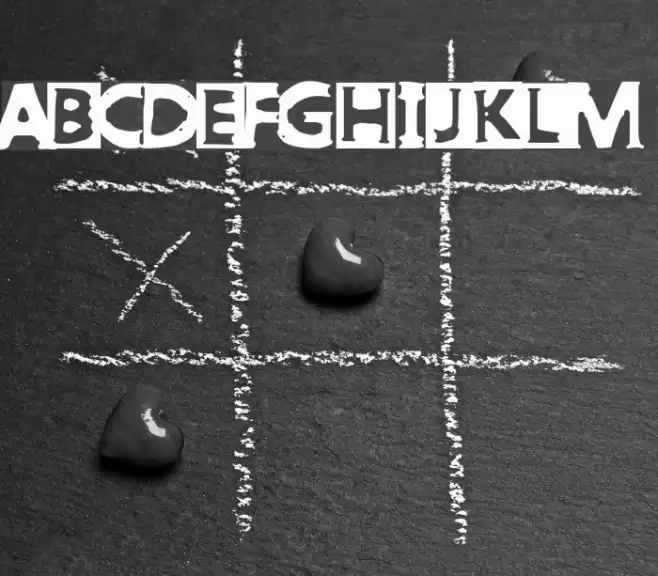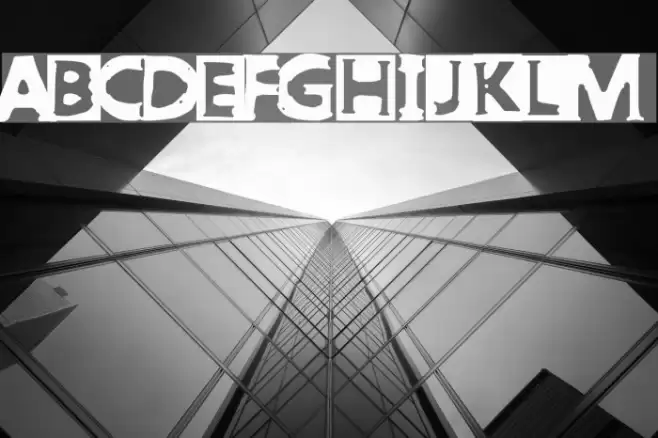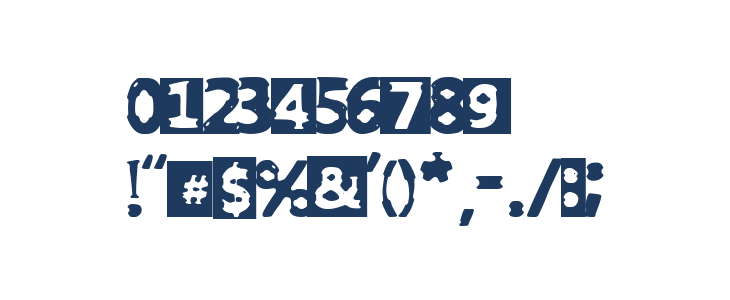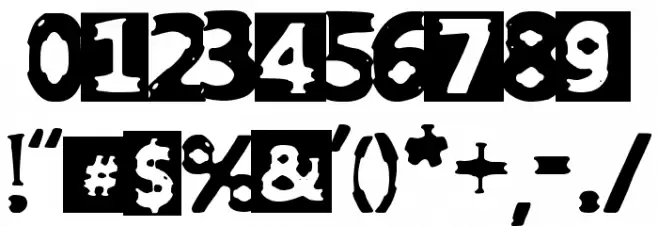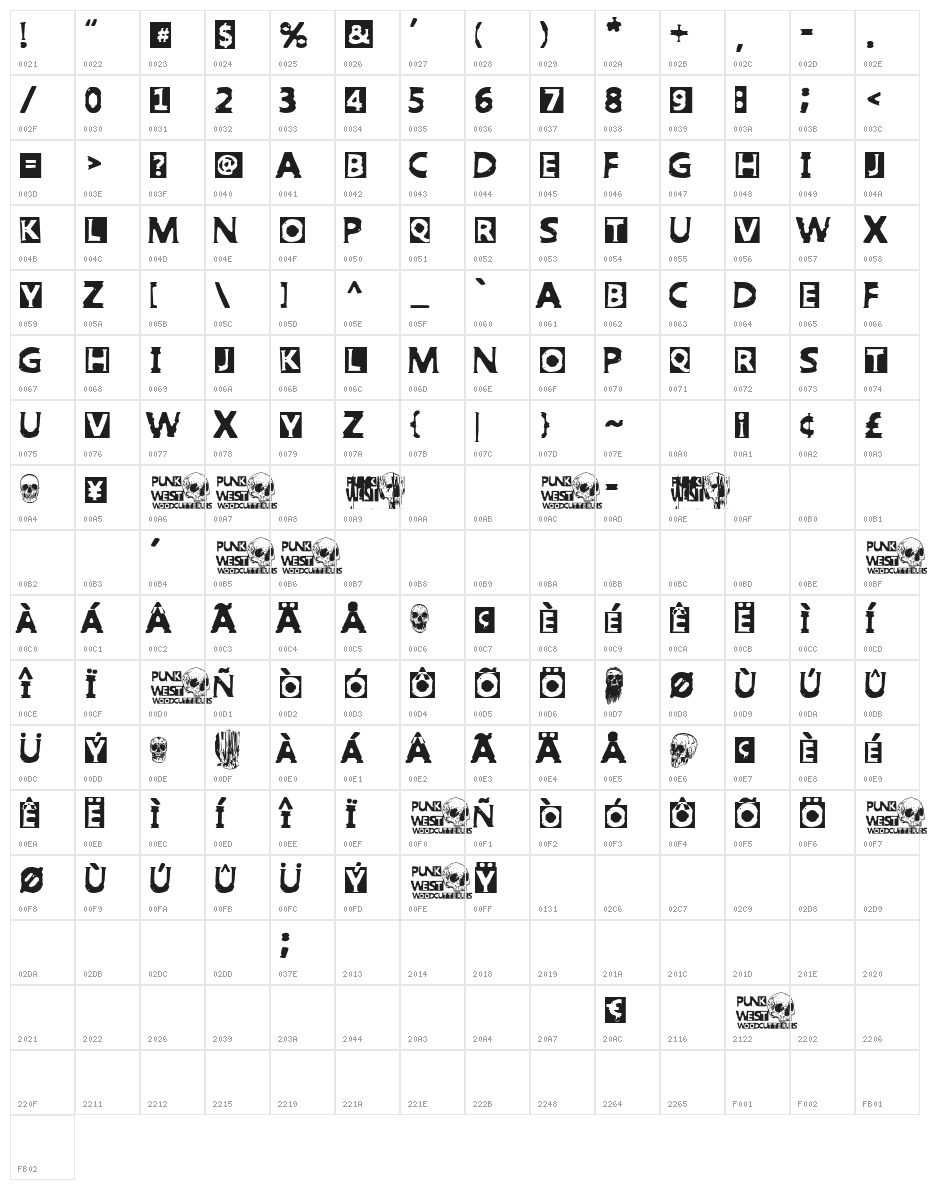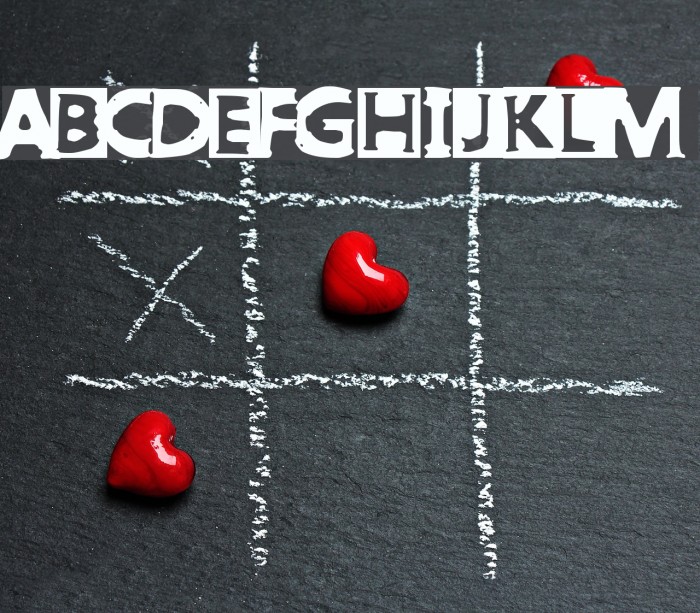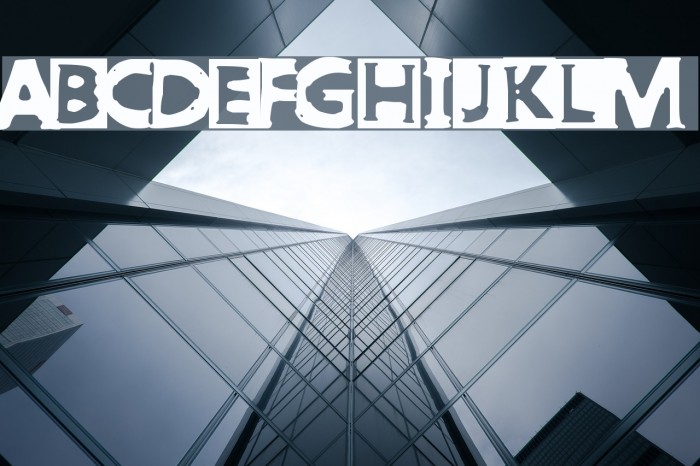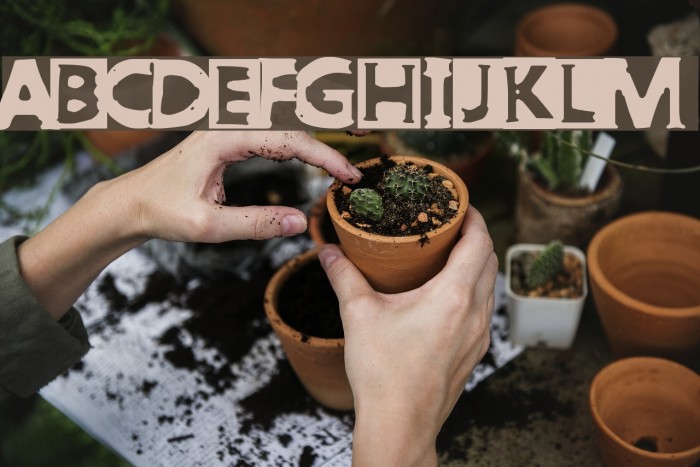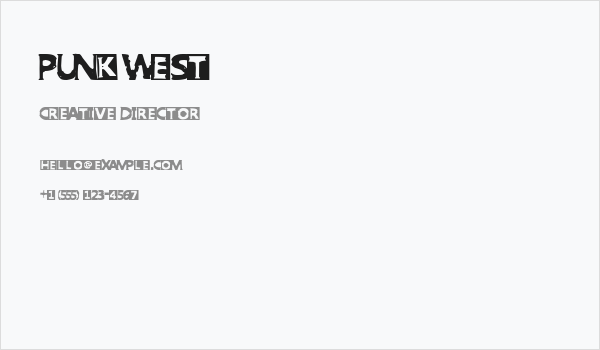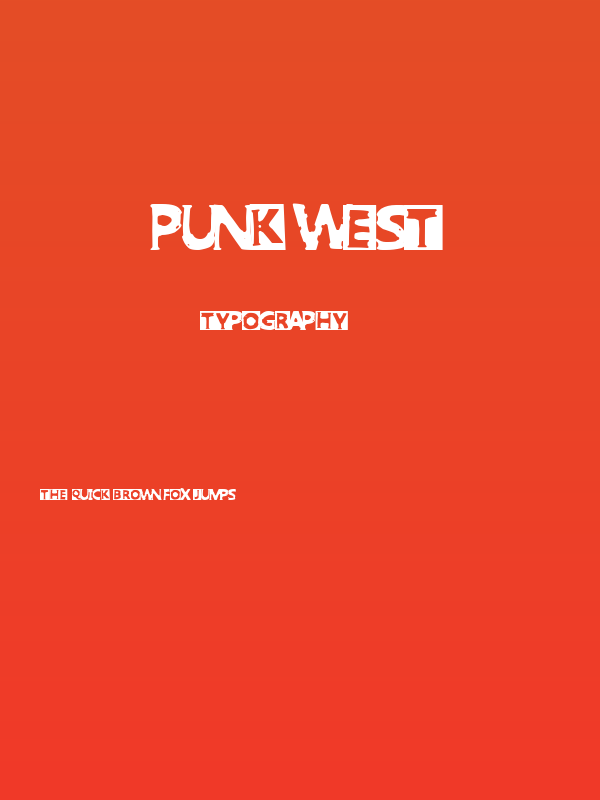
Punk West Font
Punk West Description
This font features a bold, distressed style with a rugged, edgy appearance. The characters are heavily stylized with rough edges and irregular shapes, giving them a rebellious and unconventional look. The uppercase and lowercase letters maintain a consistent design, with each character appearing as if it has been cut out or stenciled. The numbers and special characters follow the same aesthetic, adding to the cohesive, gritty feel. This font is perfect for projects that require a strong, impactful visual statement.
A bold, distressed font with a rugged, edgy appearance from Uncategorized fonts.
- Proposed Projects: Ideal for music album covers, posters, branding for alternative or punk-themed events, and any design needing a bold, rebellious touch.